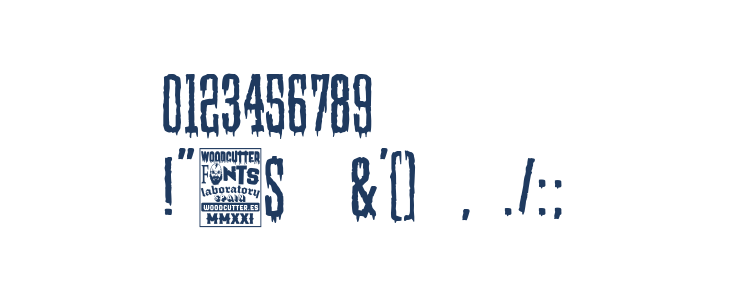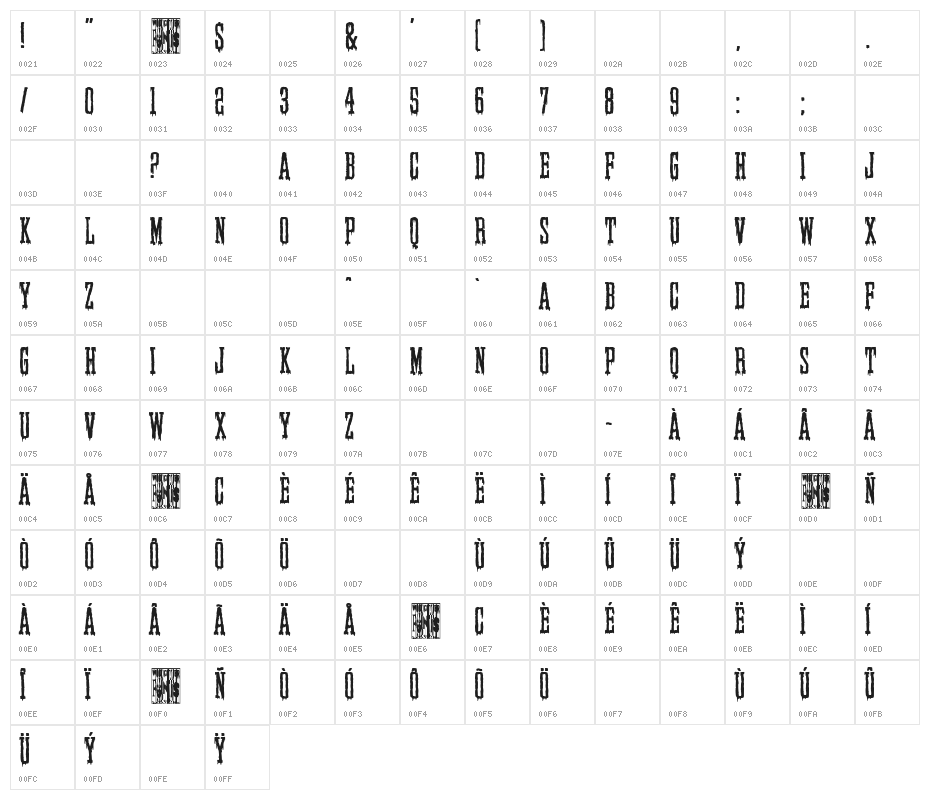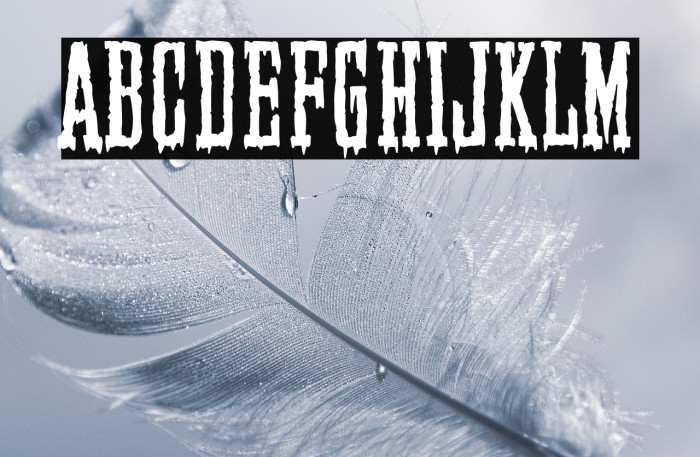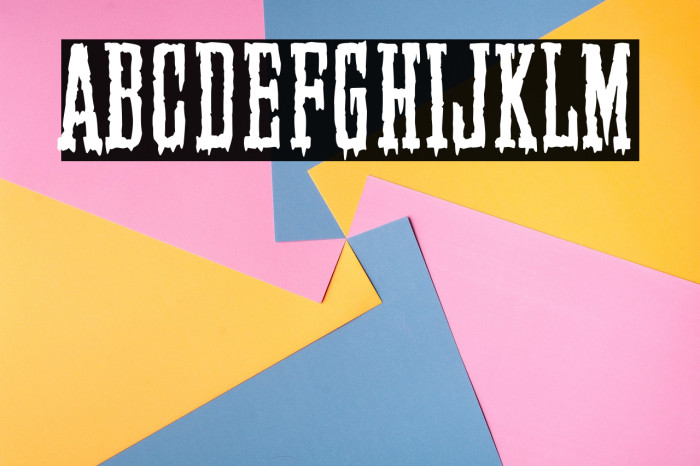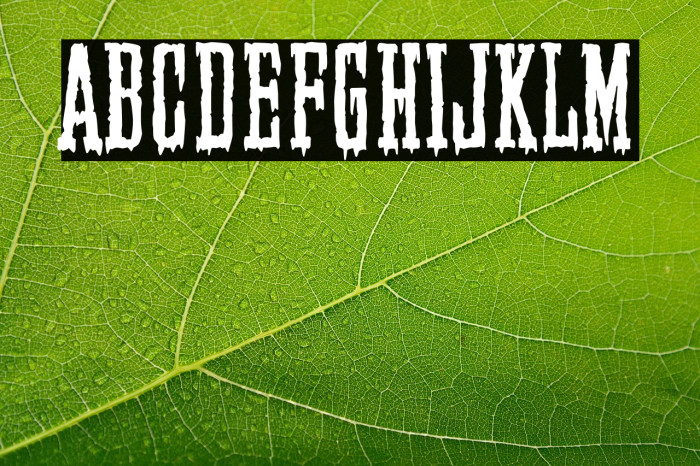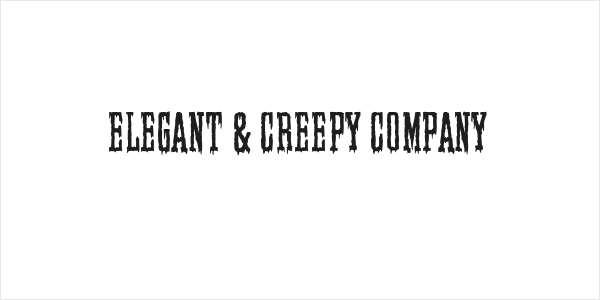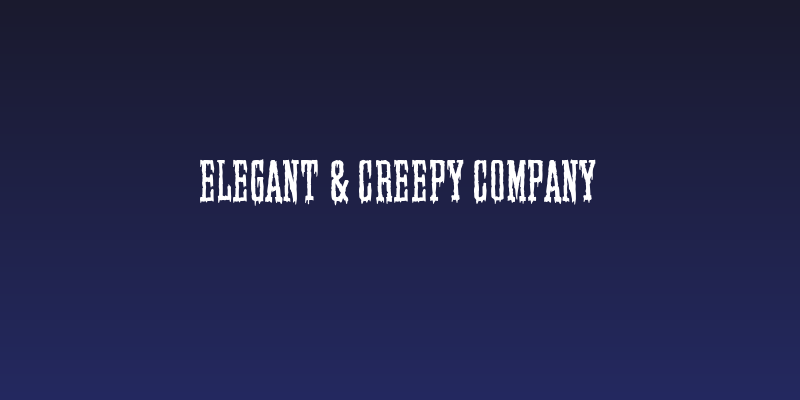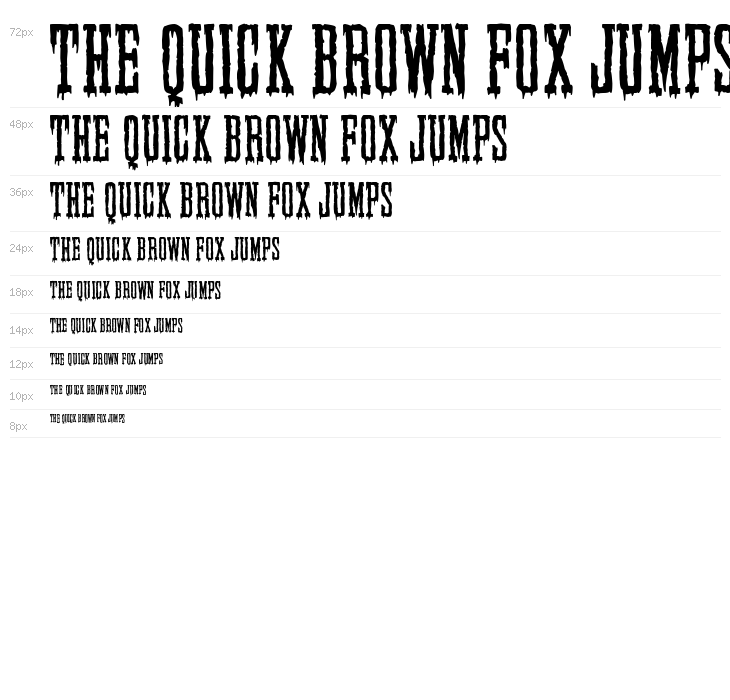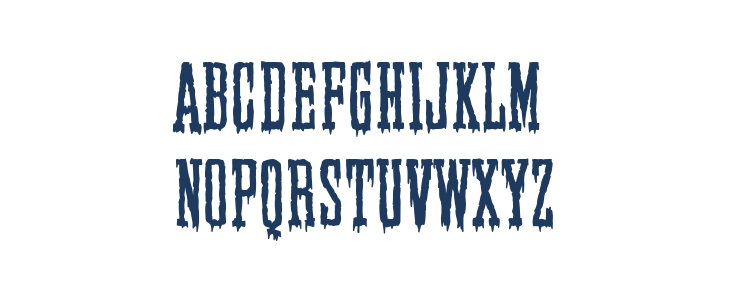
Elegant & Creepy Company Font
Elegant & Creepy Company Description
This font features a bold and dramatic style with a distressed, textured appearance that gives it a spooky and eerie feel. The uppercase letters are tall and narrow, with irregular edges that create a sense of movement and unease. The numbers and special characters maintain this unsettling aesthetic, making it ideal for themes that require a touch of horror or mystery. The font's unique design is perfect for creating eye-catching headlines or titles that need to stand out with a creepy vibe.